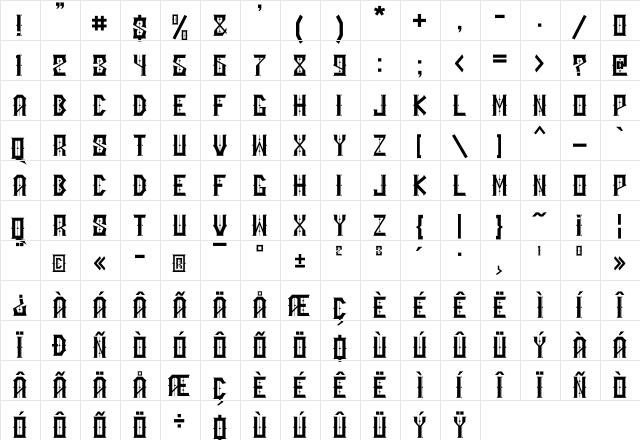
SADISH Regular
| Designer | Sealoung+Saiful Anwar |
Design Context for SADISH Typeface
SADISH is a composed and adaptable typeface that performs quietly and consistently across a wide range of design contexts.